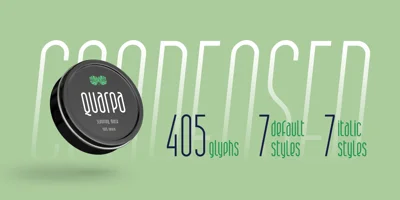
Quarpa Font
Quarpa Font is perfect for modern tech startup branding, innovative software company logos, futuristic app interfaces, cutting-edge digital platforms, advanced technology presentations, contemporary web design projects, progressive business identity, quantum computing materials, and forward-thinking social media content. This innovative typeface brings technological precision and digital sophistication to both digital and print design applications.
Quarpa Font is exciting because it embodies the sleek efficiency and innovative precision of next-generation technology, making it an exceptional choice for designers who want to convey technological advancement with authentic digital appeal. Its geometric letterforms and futuristic character provide the perfect combination of technological elegance and functional innovation, ensuring your projects communicate progress, precision, and technological excellence that resonates with audiences seeking genuine digital experiences and cutting-edge solutions.
The Quarpa Font family includes technological weight variations and digital elements, featuring light, regular, medium, and bold weights with complementary italic styles, innovative ligatures, and tech-inspired decorative details. Each style maintains consistent technological aesthetics while offering flexibility for different digital applications, allowing designers to create advanced visual systems that reflect innovation values and technological sophistication.
Whether you're designing for technology brands, digital companies, or innovation-focused projects, Quarpa Font delivers authentic technological appeal and digital sophistication that connects with audiences seeking genuine advancement experiences and cutting-edge excellence. This premium typeface offers designers the technological precision and futuristic elegance needed to create designs that communicate digital innovation, technological leadership, and progressive authenticity effectively. The font's advanced character makes it perfect for tech branding, innovation campaigns, and digital applications where authentic technological credibility is essential. Download Quarpa Font today and digitize your creative projects with genuine technological sophistication and innovative typography excellence that defines modern design standards.